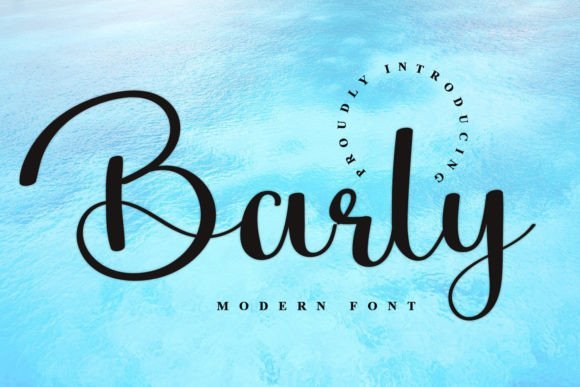
Discover the Magic of Barly Font: Elevate Your Designs
Have you ever been stuck in front of a blank canvas, trying to conjure up the perfect font to bring your creative vision to life? We’ve all been there. The search for that elusive ‘wow’ factor can be a long and arduous one. But what if I told you that there’s a font that can make all the difference? Welcome to the world of Barly Font, a fresh and beautiful typeface that’s sure to elevate your designs and leave a lasting impression.
Whether you’re crafting a YouTube banner, designing a wedding invitation, or creating a flyer for your latest project, Barly Font is the perfect companion for your creative journey. Its versatility, combined with its stunning aesthetic, makes it an invaluable asset for designers of all levels. With Barly Font, you’ll be able to add a touch of elegance and sophistication to your work, setting you apart from the rest and making your designs truly unforgettable.
Barly Font Review
I recently had the chance to work with the Barly Font, and I must say it was an interesting experience. Here are my honest thoughts on what works well and what doesn’t.
- Unique Personality: The Barly Font has a distinct personality that’s perfect for creative projects that need a touch of whimsy.
- High-Quality Renditions: The font’s high-quality renditions on various platforms and devices ensure that it looks great regardless of the environment.
- Flexibility: The Barly Font comes in multiple weights, making it a great choice for a wide range of design projects.
- Readability: While the font is visually appealing, its readability can be a concern, especially for large blocks of text.
- Limited Legibility: The font’s unique style can make it difficult to read for some users, particularly those with visual impairments.
- Not Suitable for Body Text: Due to its high visual impact, the Barly Font is best used for headings and titles rather than body text.
The Barly Font is a great choice for designers looking to add a touch of personality to their projects. While it has its limitations, it’s a versatile font that can add a unique flair to a wide range of designs. However, it’s not ideal for large blocks of text or for users who prioritize readability above all else.
Getting the Most Out of Barly Font
Here are some tips to get the most out of Barly Font:
– Use it for titles and headings to add a touch of elegance to your designs.
– Experiment with different font sizes and styles to create visual interest.
– Pair it with other fonts to create a unique and eye-catching typography combination.
Barly Font is commonly used for:
– Branding and logo design
– Business cards and stationery
– Wedding invitations and event design
– Digital marketing materials and social media graphics
Alternatives to Barly Font
Montserrat is a sans-serif font that is highly legible and versatile. It is perfect for use in digital products, such as websites and mobile apps, where readability is crucial. Montserrat has a more geometric and modern feel compared to Barly Font, which has a more rounded and friendly appearance. When to use: For digital products and modern branding.